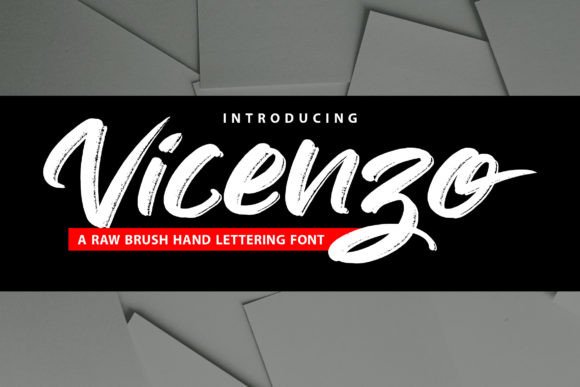
Introducing Vicenzo Font: The Epitome of Style and Daring!
Journey into the realm of typography with Vicenzo Font, a remarkable brush script creation by Vunira. This font is not just a collection of letters; it's an artistic masterpiece that dances across the screen with confidence and flair. Its bold and expressive strokes ignite a spark of energy and excitement that's impossible to ignore.
Vicenzo's seamless letter connections create a dynamic and vibrant flow that captivates the eyes. Its versatility knows no bounds, making it the perfect choice for projects that demand a touch of edginess. From music album covers to posters and branding, Vicenzo adds a dash of boldness and daring personality that sets your designs apart.
With Vicenzo, you're not just downloading a font; you're embracing a new level of creative expression. Its bold and confident strokes command attention, while its versatility allows you to explore a wide range of design possibilities. Unleash your inner artist and let Vicenzo transform your projects into stunning visual masterpieces.